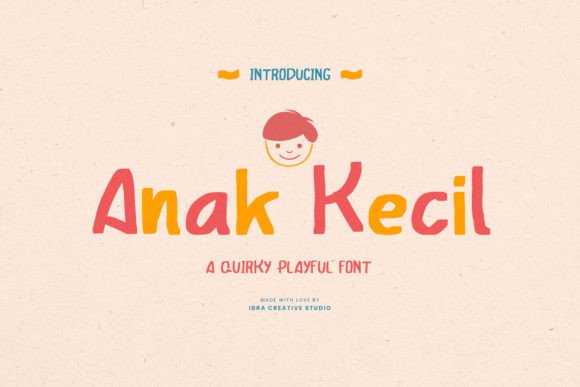
The Whimsical World of Anak Kecil Font
I still remember the design project that led me to discover the delightful Anak Kecil font. I was working on a children’s book, struggling to find the perfect typeface that would capture the playful essence of my story. A client had requested a font that would make their readers feel like they were stepping into a fantastical world, full of imagination and wonder. That’s when I stumbled upon Anak Kecil, and it was love at first sight! ✨
A Personal Review of Anak Kecil
- ✨ Playful and whimsical design: Anak Kecil’s curvaceous letterforms and playful serifs make it a joy to use in any design project.
- ✅ Eccentric charm: Each character has a unique personality, as if handcrafted by an imaginative child.
- 💫 Perfect for kids’ projects: This font is ideal for children’s books, educational materials, and any project that requires a touch of playfulness.
While Anak Kecil is a delightful font, there are a few things to keep in mind: 🤔
- ⚠️ Limited use in formal contexts: Due to its playful nature, Anak Kecil might not be the best choice for formal or professional projects.
- ⚠️ Some characters may be tricky to read: At smaller font sizes, some characters might be difficult to decipher.
The Story Behind Anak Kecil
Anak Kecil was designed with the intention of capturing the carefree spirit of childhood. The font’s creator imagined a world where letters were playful, curvy, and full of personality. Inspired by children’s doodles and scribbles, Anak Kecil brings a touch of whimsy to any design project.
Q: What does “Anak Kecil” mean?
A: “Anak Kecil” is Indonesian for “little child”. The font’s name reflects its playful, childlike nature.
Q: Is Anak Kecil suitable for body text?
A: While Anak Kecil is a beautiful font, it’s best used for headings, titles, and short paragraphs. For longer body text, a clearer font might be more readable.